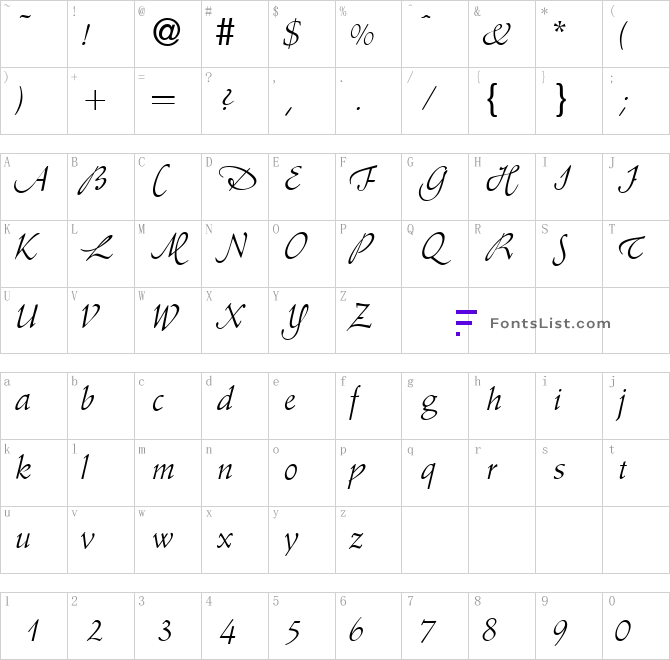
- Font Name:A770-Roman-Swash
A770-Roman-Swash-Regular.ttf is a very beautiful artistic font, A770-Roman-Swash-Regular.ttf is widely used in the design and printing of various books and pictures,A770-Roman-Swash-Regular.ttf has a strong visual impact,A770-Roman-Swash-Regular.ttf is a commonly used font in newspapers, magazines and books, and is used in posters, e-commerce Poster design, store design, logo design, font design and other fields.A770-Roman-Swash-Regular.